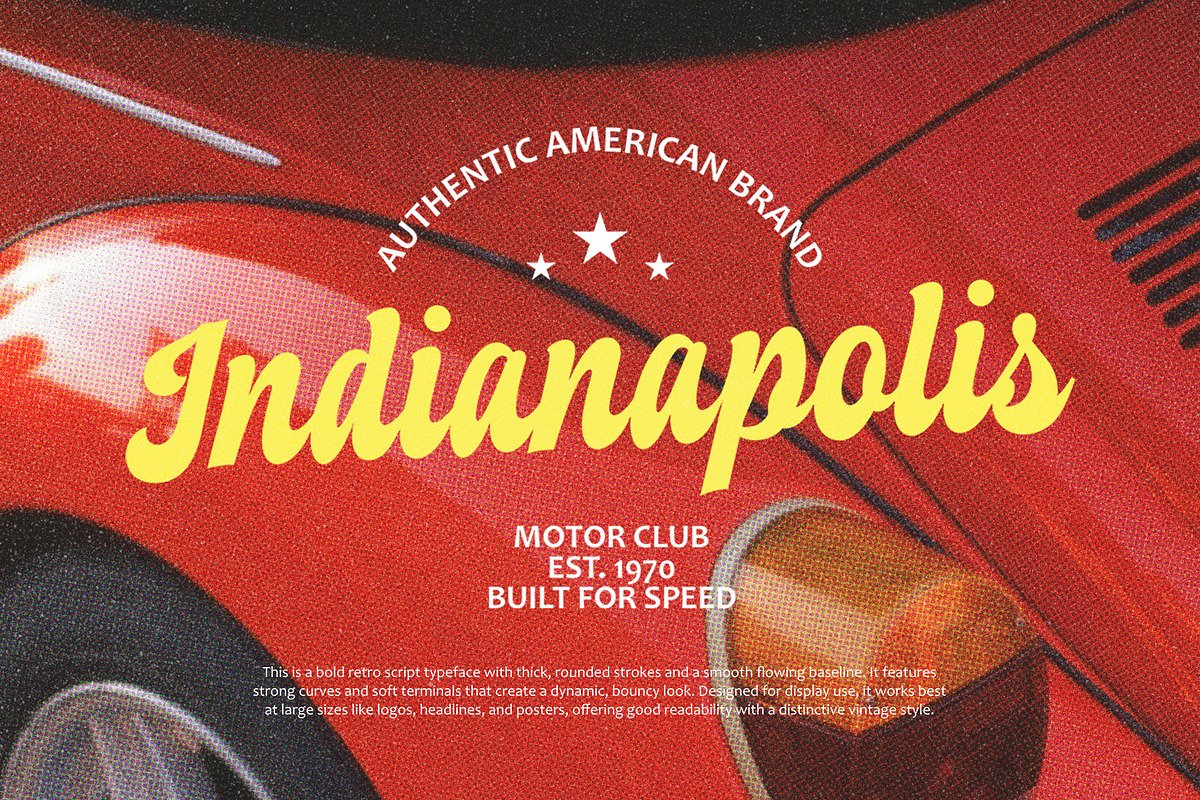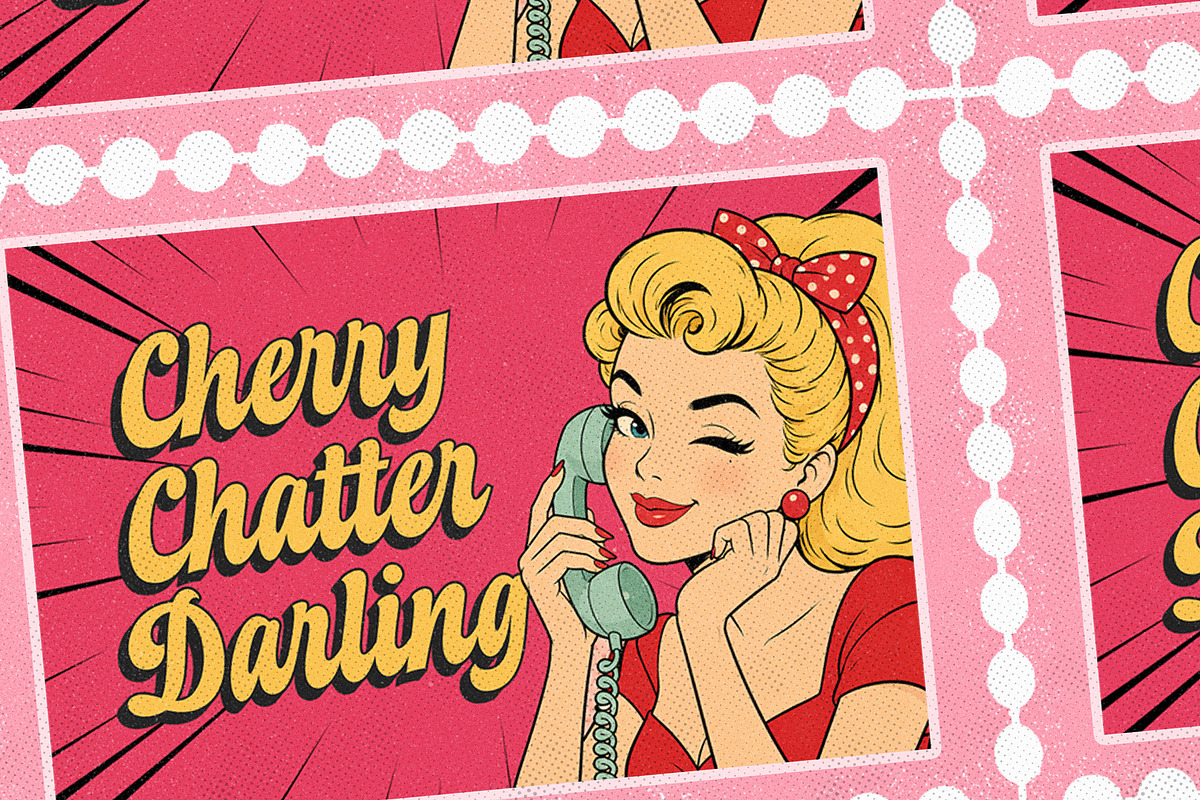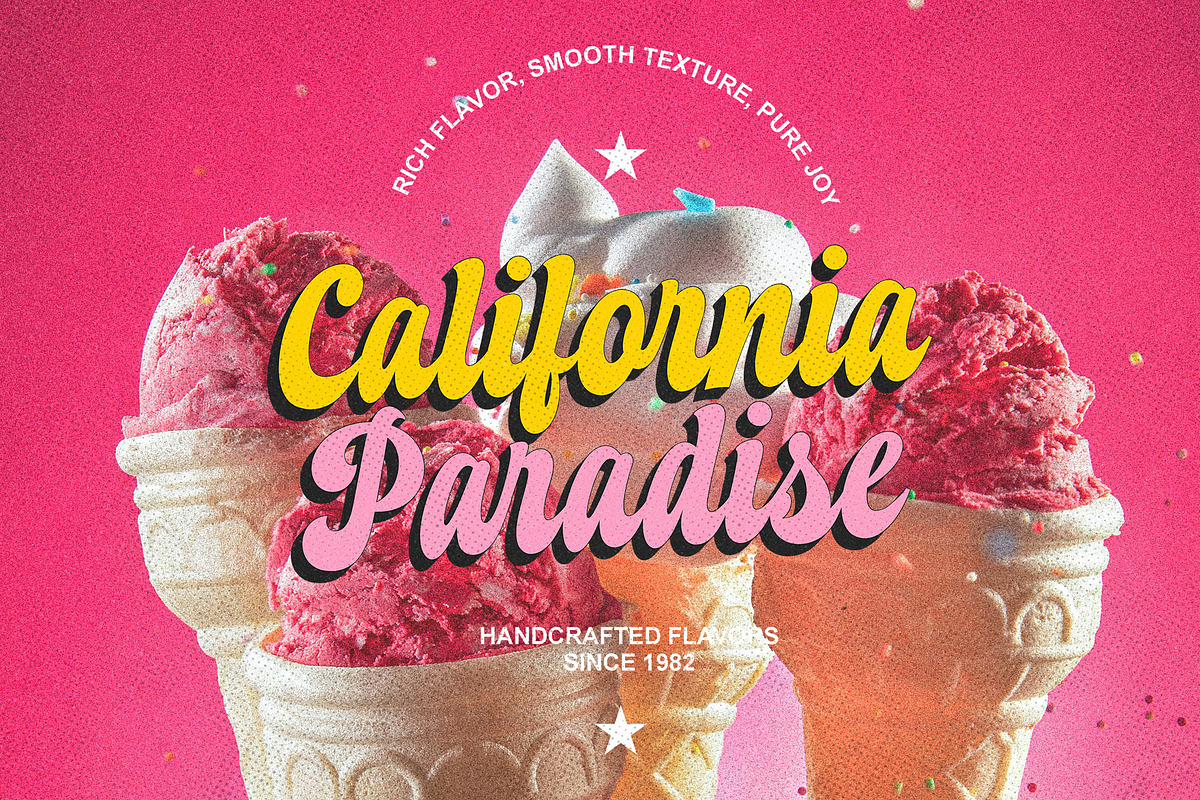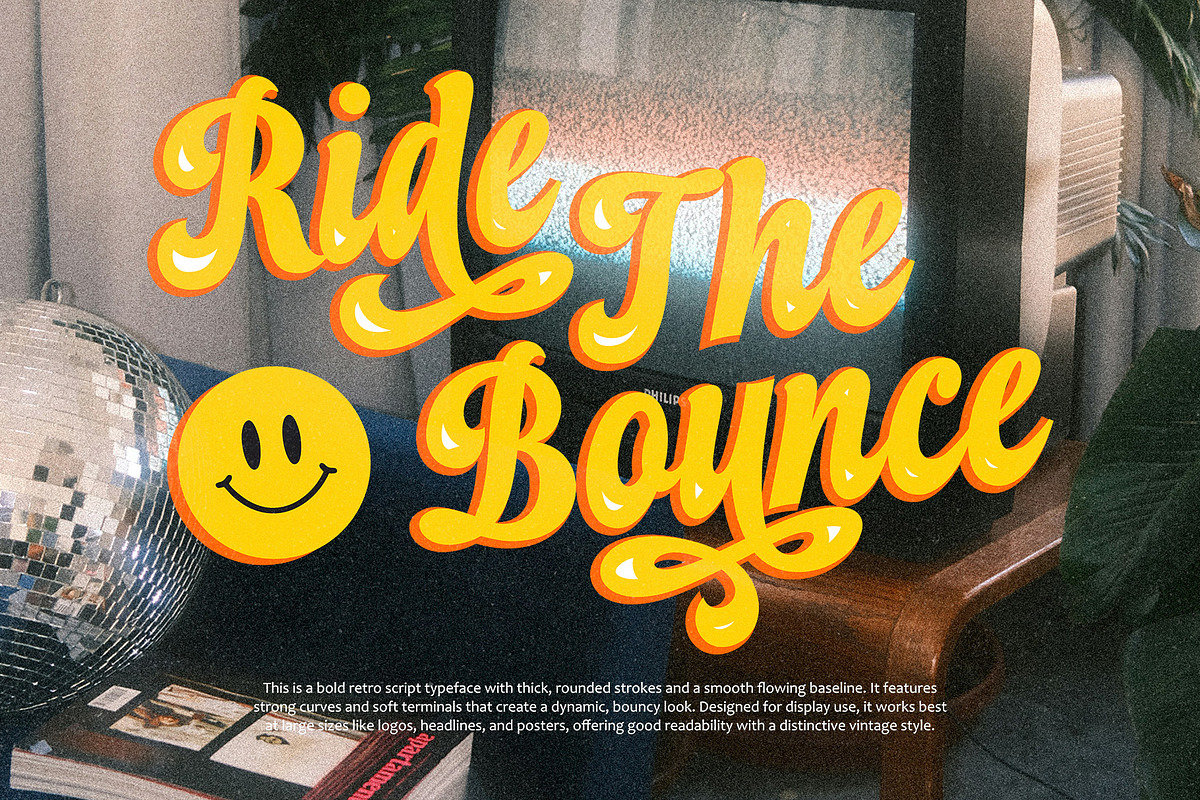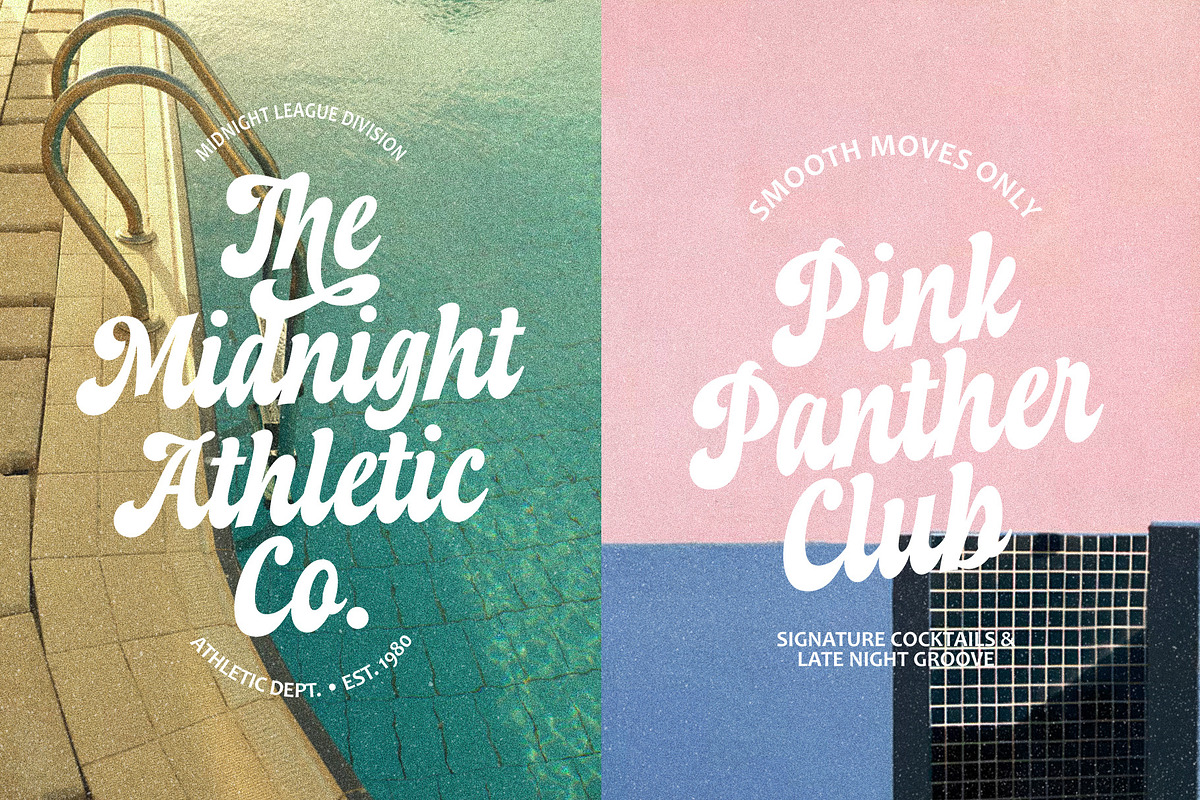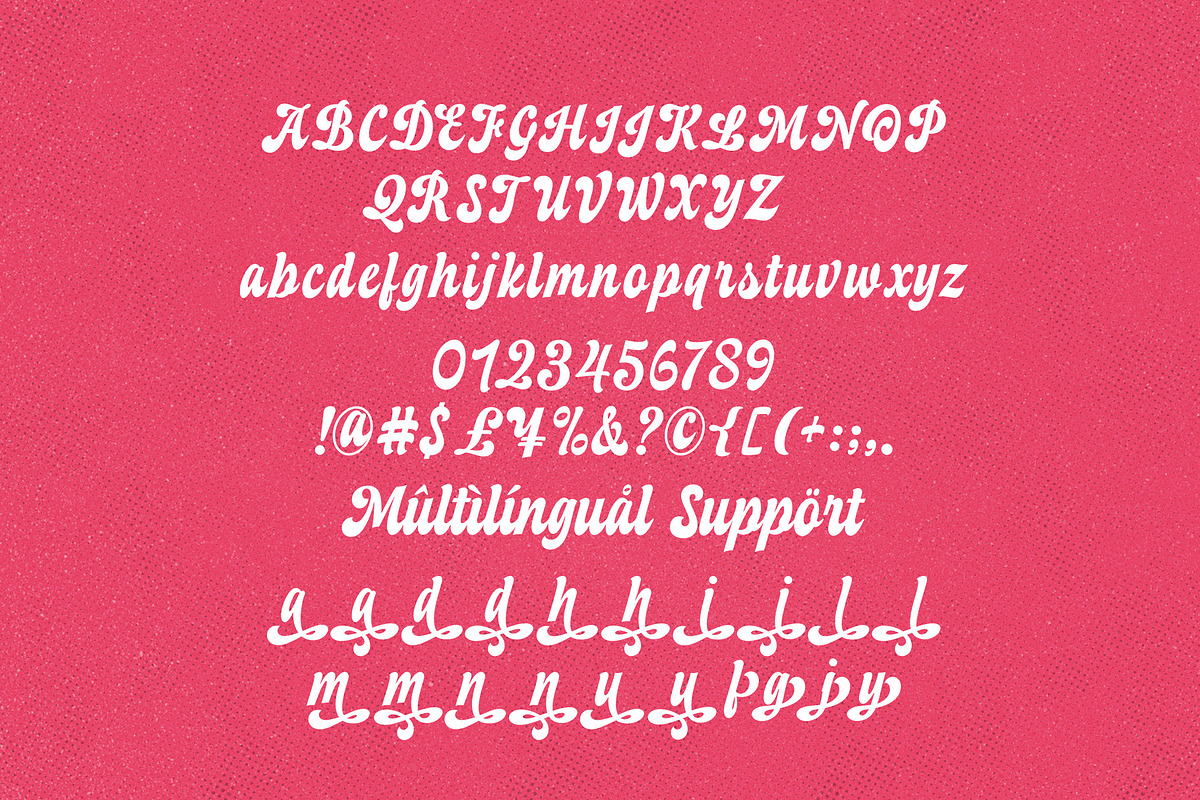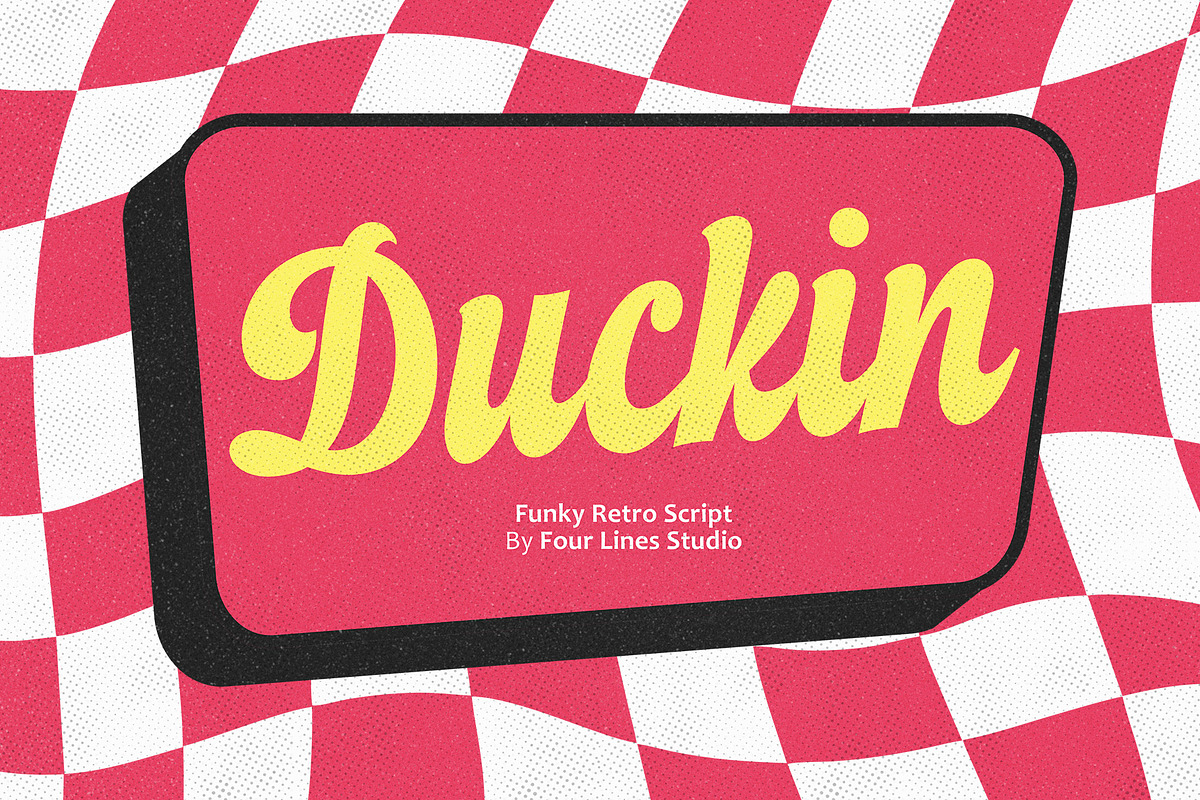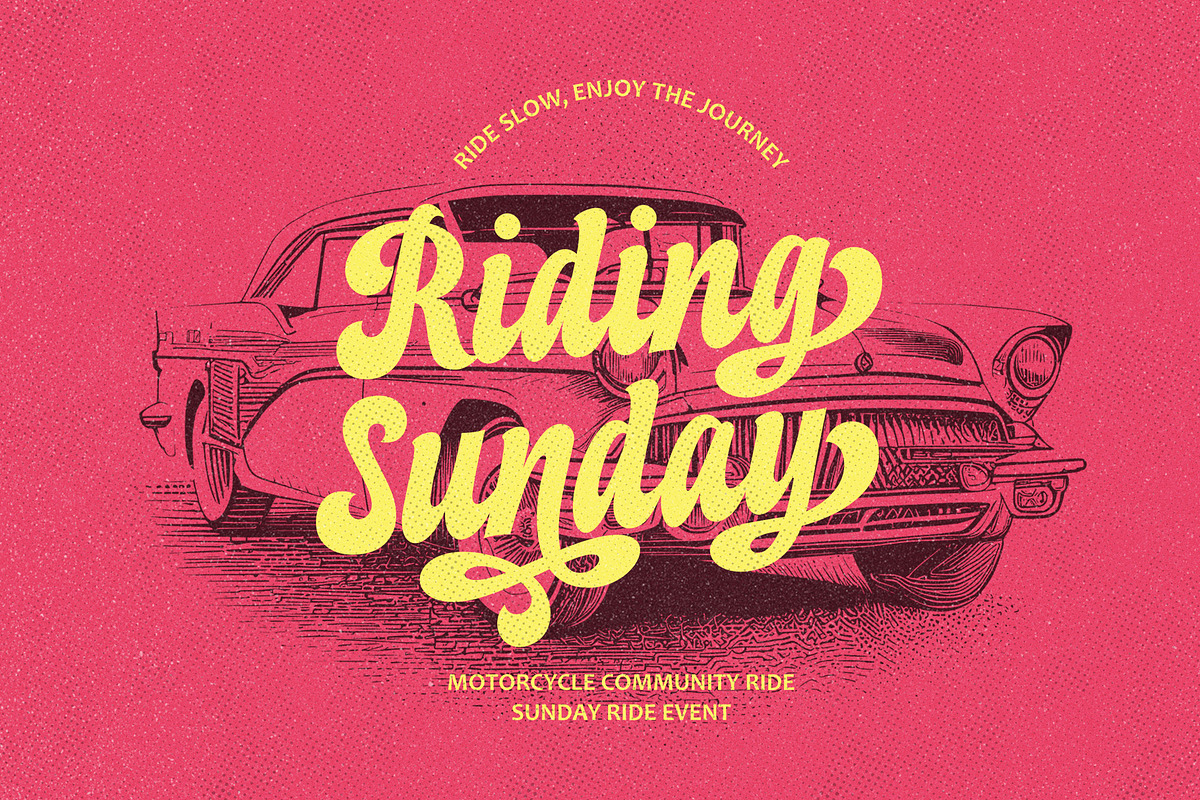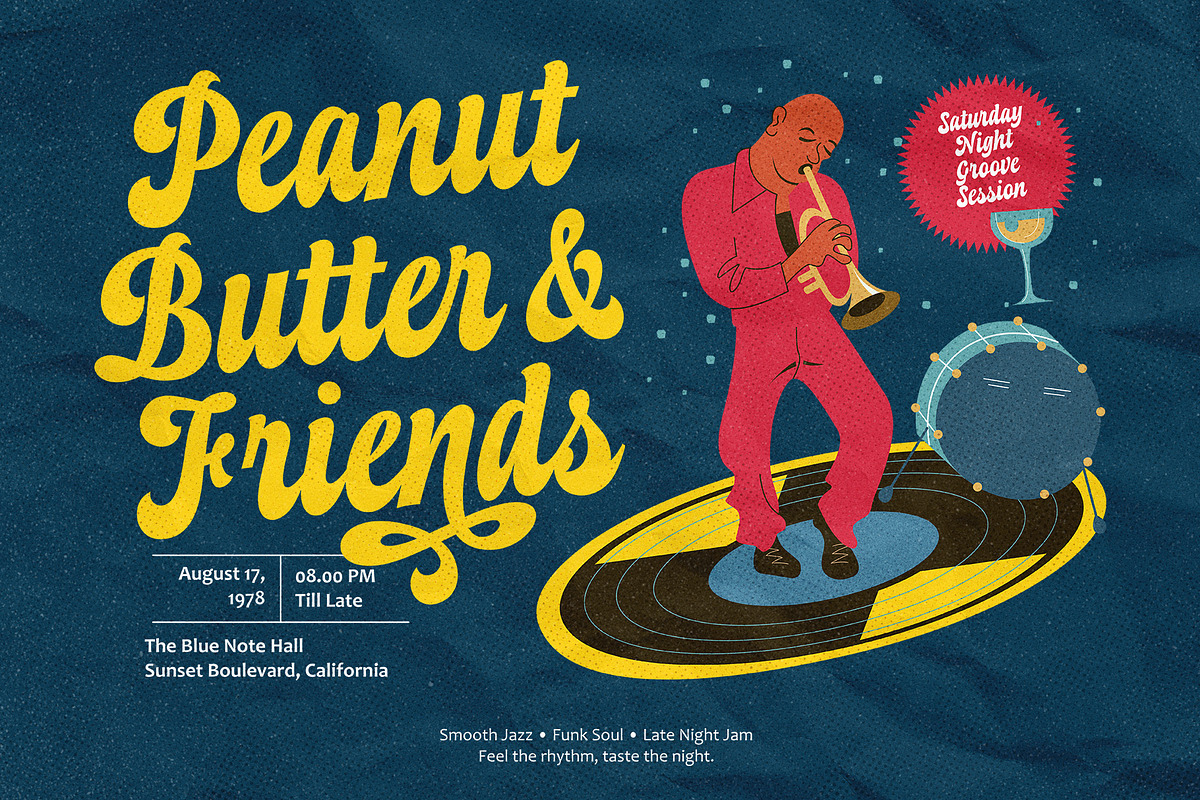
Duckin – Funky Retro Script
**Duckin’ **is a retro-style script font featuring bold characters, dynamic flow, and playful letterforms. It combines classic vintage aesthetics with a fun groovy touch, making it perfect for designs that aim to stand out with strong personality and visual impact.
With smooth curves, a flowing baseline, and a bouncy rhythm, Duckin works especially well for logos, posters, product packaging, branding, merchandise, headlines, and social media content. Its expressive style remains highly readable, allowing it to fit both retro and modern designs with a nostalgic feel.